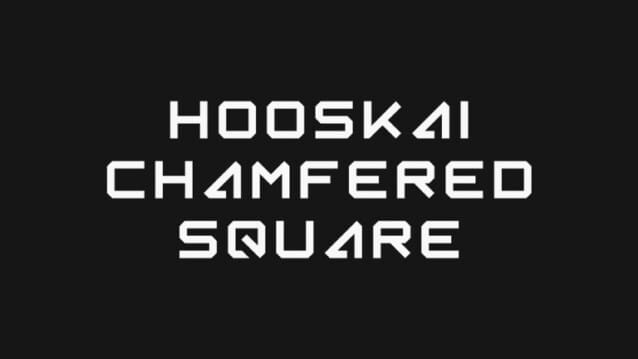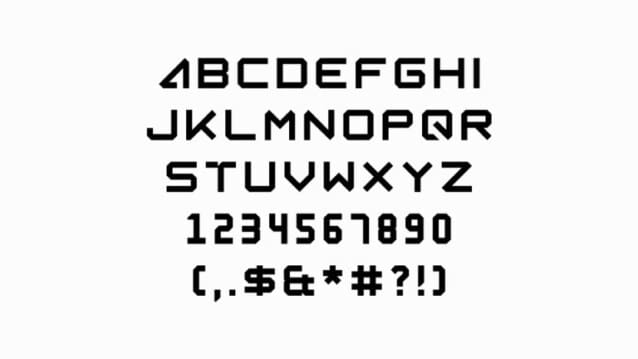
Hooskai Chamfered Square Font
Hooskai Chamfered Square Font is a cool, bold and aggressive display font designed by SiberiaHusky with chamfered edges that adds a touch of modern geometry and sophisticated edge to your designs.
Hooskai Chamfered Square features a bold and angular design, with each letter exuding a sense of structured elegance. Its square forms and chamfered edges make your text feel like a fusion of classic typography and modern aesthetics, creating a visual impact that commands attention.